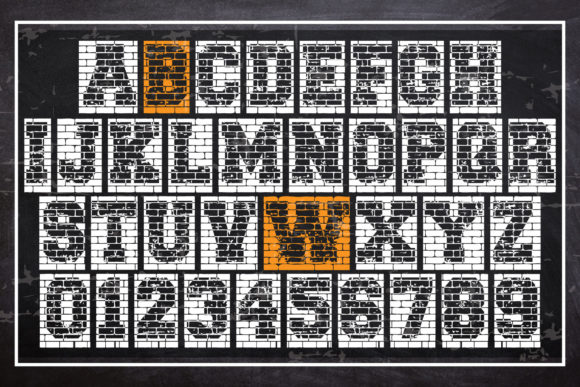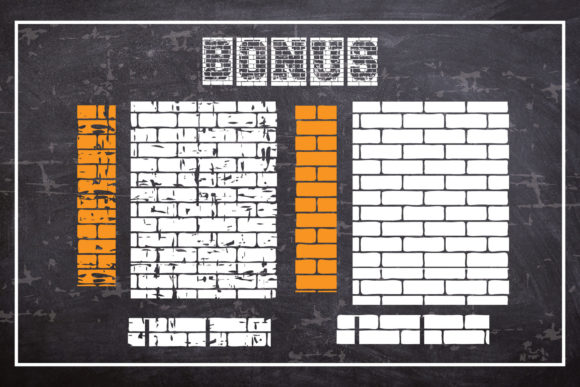
Brick Wall Font: The Ultimate Choice for Bold and Edgy Designs
In the world of typography, fonts play a crucial role in conveying the tone and personality of a design. When it comes to creating bold and assertive designs, the Brick Wall font is an excellent choice. This sharp-looking and cool font is perfect for designers and crafters looking to add an edgy touch to their work. In this article, we’ll explore the features and benefits of the Brick Wall font and how it can elevate your designs to the next level.
What is Brick Wall Font?
Brick Wall font is a bold and assertive display font designed to make a statement. Its unique and rugged texture gives it a distinctive look that’s reminiscent of a brick wall. The font’s sharp edges and clean lines make it perfect for creating eye-catching designs that demand attention. Whether you’re working on a sports-related design, a poster, or a logo, the Brick Wall font is sure to inspire your creativity.
Key Features of Brick Wall Font
- Bold and Assertive: The Brick Wall font is designed to make a statement. Its bold and assertive texture makes it perfect for creating designs that demand attention.
- Sharp-Looking and Cool: The font’s sharp edges and clean lines give it a cool and edgy look that’s perfect for sports-related designs and other bold projects.
- Versatile: The Brick Wall font is versatile and can be used for a wide range of design projects, from posters and logos to t-shirts and stickers.
- Easy to Read: Despite its bold texture, the Brick Wall font is easy to read, making it perfect for designs that require a clear and concise message.
Benefits of Using Brick Wall Font
So, why should you choose the Brick Wall font for your next design project? Here are just a few benefits of using this amazing font:
- Adds an Edgy Touch: The Brick Wall font adds an edgy touch to your designs, making them stand out from the crowd.
- Perfect for Sports-Related Designs: The font’s bold and assertive texture makes it perfect for sports-related designs, such as team logos, posters, and t-shirts.
- Increases Visibility: The Brick Wall font is designed to grab attention, making it perfect for designs that need to stand out in a crowded market.
- Easy to Customize: The font is easy to customize, allowing you to adjust the size, color, and texture to suit your design needs.
Endless Possibilities with Brick Wall Font
The Brick Wall font offers endless possibilities for designers and crafters. Here are just a few ideas to get you started:
- Sports Team Logos: Use the Brick Wall font to create bold and assertive logos for sports teams, such as football, basketball, or soccer teams.
- Posters and Flyers: Create eye-catching posters and flyers using the Brick Wall font, perfect for promoting events, concerts, or sales.
- T-Shirts and Apparel: Use the font to create bold and stylish t-shirts and apparel for sports teams, events, or promotions.
- Stickers and Decals: Create custom stickers and decals using the Brick Wall font, perfect for laptops, water bottles, or cars.
In conclusion, the Brick Wall font is a bold and assertive display font that’s perfect for designers and crafters looking to add an edgy touch to their work. Its unique texture, sharp edges, and clean lines make it perfect for creating eye-catching designs that demand attention. With its endless possibilities and versatility, the Brick Wall font is an excellent choice for any design project that requires a bold and assertive look.
Get Ready to Elevate Your Designs with Brick Wall Font